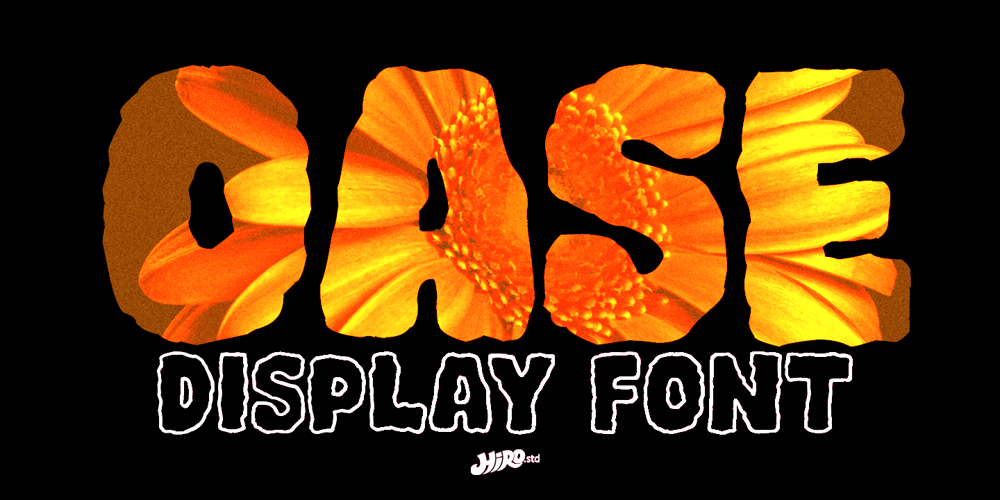
Oase Font Family was designed by Chairul Ashar and published by HIRO.std. Oase contains 2 styles and family package options. Oase is Display Font This font describes about about huge, bold, brush, handmade, movie. FEATURES- Uppercase letters- Numbering and Punctuations- PUA Encoded Characters- Multilingual Support- Works on PC or Mac USEOase works great in any branding, logotype, magazines, poster, social media posts, clothing, advertisements, product packaging, product designs, label, company profile, quotes and any projects that need Huge and Bold taste. Enjoy using!Thanks. HIRO.std